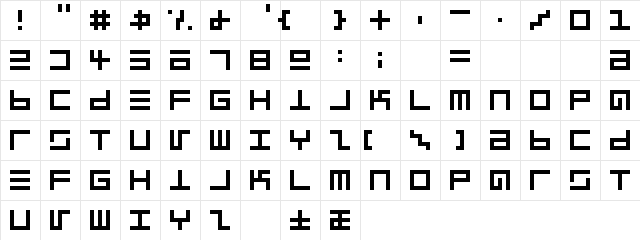
Epps Evans Regular Font Preview
Epps Evans Regular
Epps Evans Regular Font Details
Design Context for Epps Evans Typeface
Epps Evans is a composed and adaptable typeface that performs quietly and consistently across a wide range of design contexts.